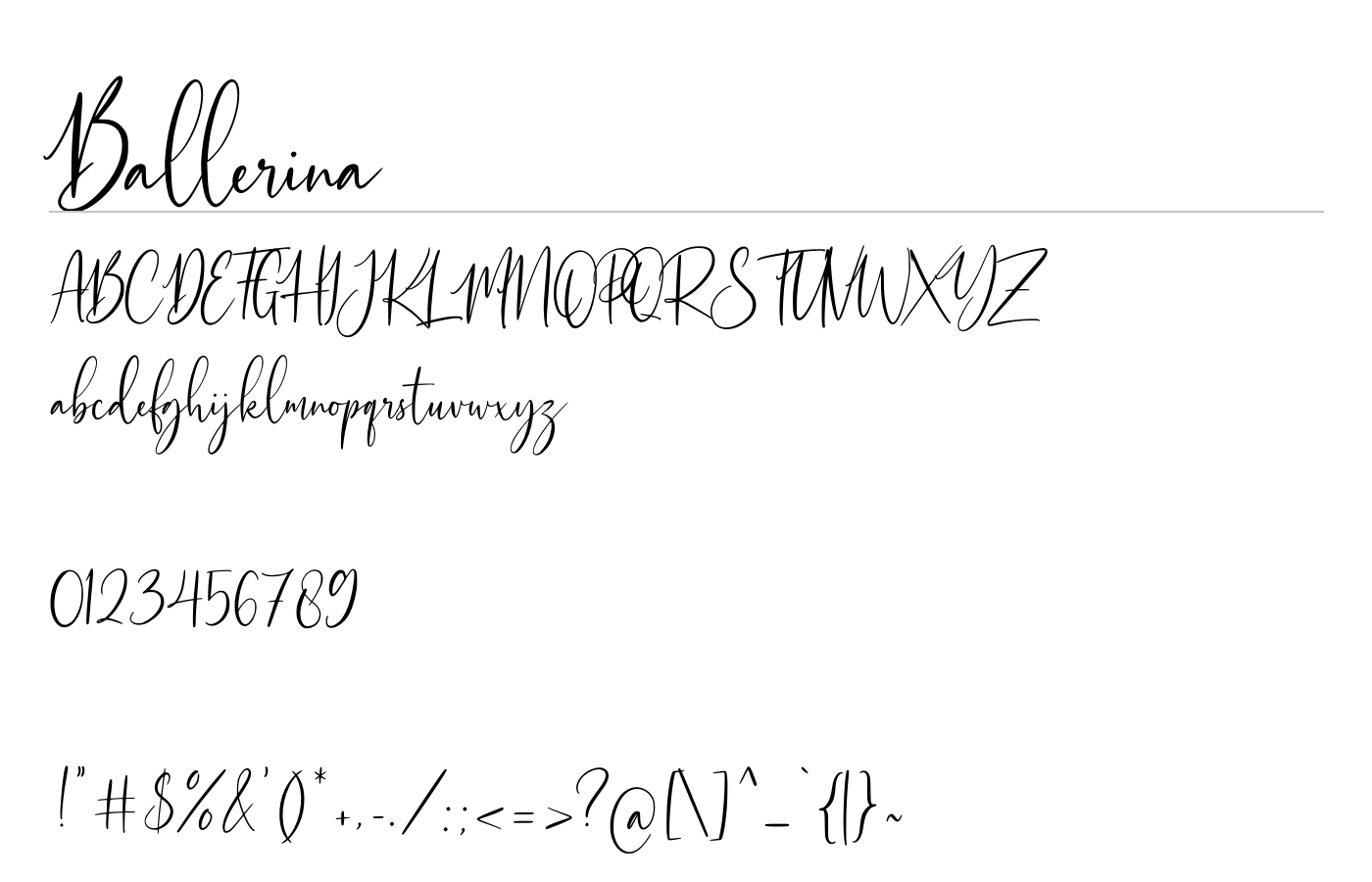
Ballerina Font is a delicate, handwritten script typeface with a slender, elegant form that exudes a graceful and personal touch. Its tall, narrow letterforms and fluid, brush-like strokes create a sophisticated and artistic feel, making it perfect for invitations, branding, and feminine, stylish designs where a light and charming personality is desired. This font is ideal for adding a subtle yet expressive flair to creative projects requiring a refined handwritten look.
Ballerina Font
About Ballerina Font
| Font family | Ballerina Font |
| Designer | Novia Himatunnisa |